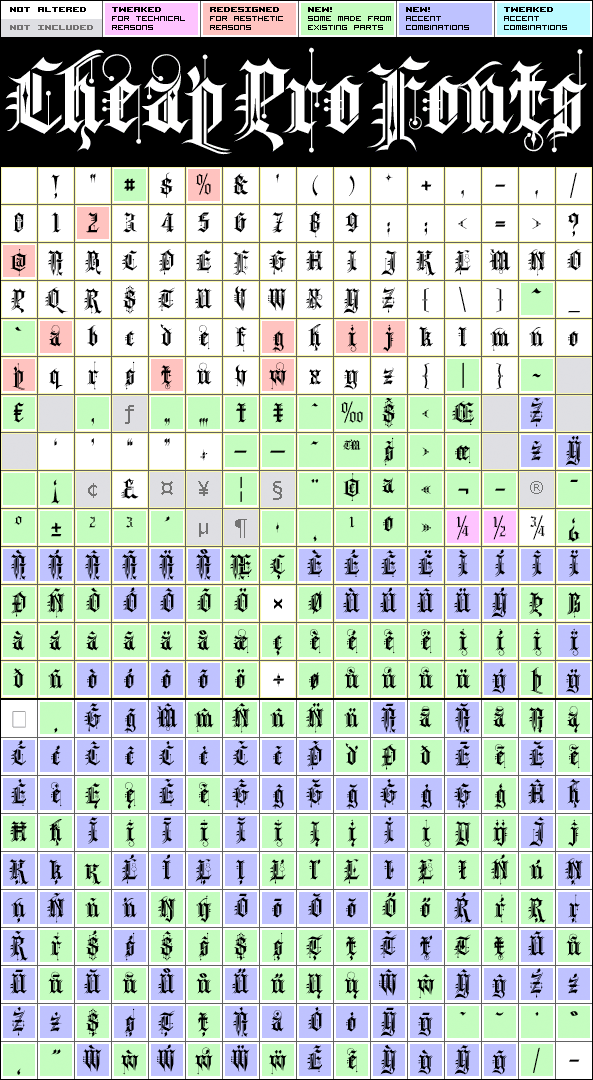
Kingthings Spike Pro
Kingthings Spike Pro by Kevin King
Highlights:
369 glyphs!
(102 in original)
86 class kernpairs
= 1319 kerning pairs
(5 in original)
Description:
You gotta love this extreme take on the "gothic" blackletter traditions! :D
I have edited a few letters, drastically improved the spacing - and then given it the usual large CheapProFonts character set. Fun!
Kevin King says: "Kingthings Spike was made because Buffy has one, I made Willow... Xander is yet to come. Oh and because I hate Engravers Old English! Pugin, eat my shorts! Sorry!"
Kingthings Spike Pro is a professionally reworked font that contains an extended character set for setting text in 65 languages requiring more than the basic A-Z!